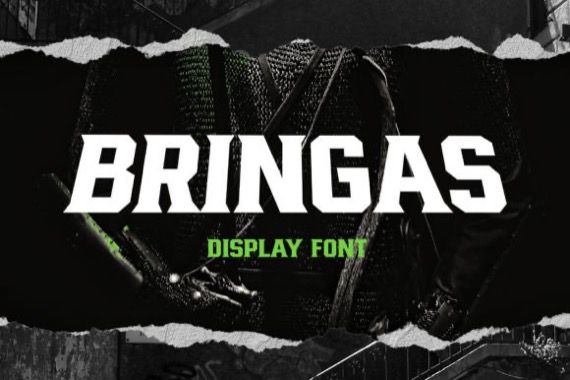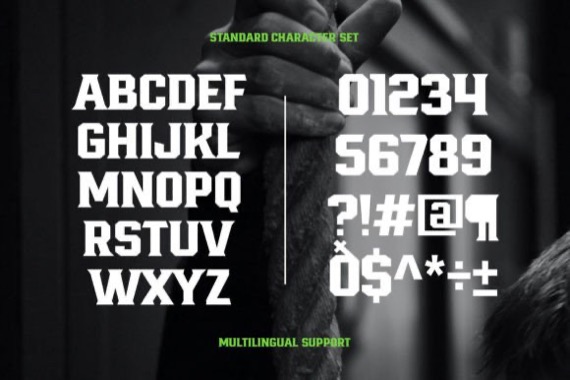
Bringas Font from Arterfak Project is a strong and classy slab serif typeface that beautifully blends the influences of 90s typography and vintage design. This font combines techno and sporty styles to create a unique and energetic typeface.
Bringas is the epitome of power and manly, emanating strong and powerful vibes. With its bold lines and confident letterform, it demands attention and adds a touch of sportiness to any project. Whether you’re designing a poster, sports jersey, sticker, logo, signage, banner, or display.
Bringas is the perfect choice. It’s an all-caps font with extra special characters and multilingual support, ensuring versatility and accessibility. Embrace the sporty, powerful vibe of Bringas and let it elevate your designs to new heights.
Bringas Display Serif Font